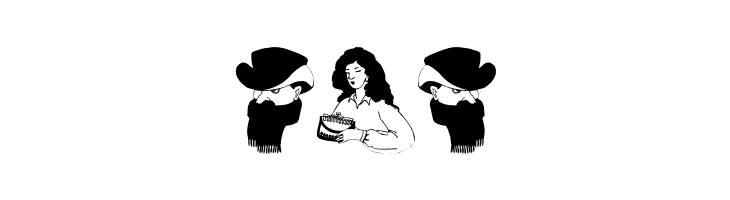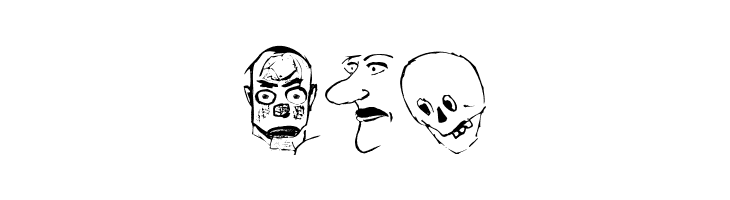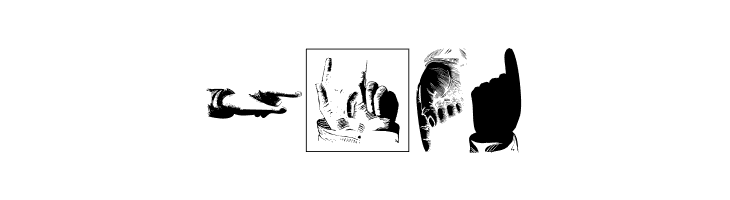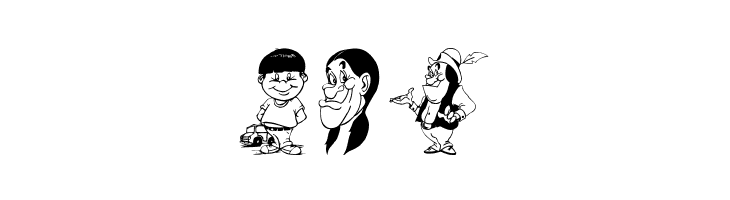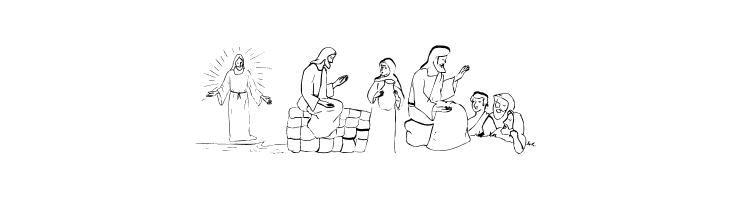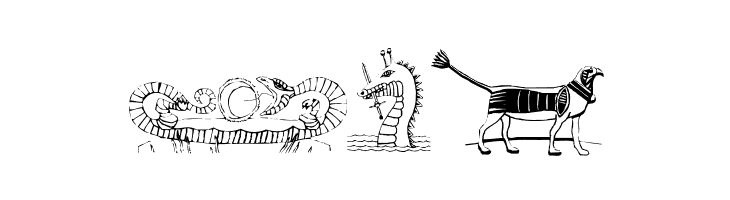
• HeadsForYourAds
Whimsical illustrated font featuring diverse character heads and figures.
• HeadsVectorAttempt
A whimsical, hand-drawn display font made of unique illustrated heads.
• HandsUp
A display font made up of various hand illustrations representing each character.
• PeaceAndNightmares
Cartoonish, illustrated font with playful and spooky character depictions.
• Indians Today
Cartoonish, illustrated font with each character as a unique caricature.
• HinduismK
Decorative illustrated font with Hindu religious and cultural motifs.
• Karlas704
A collection of hand-drawn, whimsical faces and abstract shapes.
• Karlchens
A playful, cartoonish font made of hand-drawn character illustrations.
• Biblicals
A pictorial font using biblical scene illustrations as glyphs.
• WhoWasTheArtist
Whimsical, illustrated font with mythological and ancient motifs.